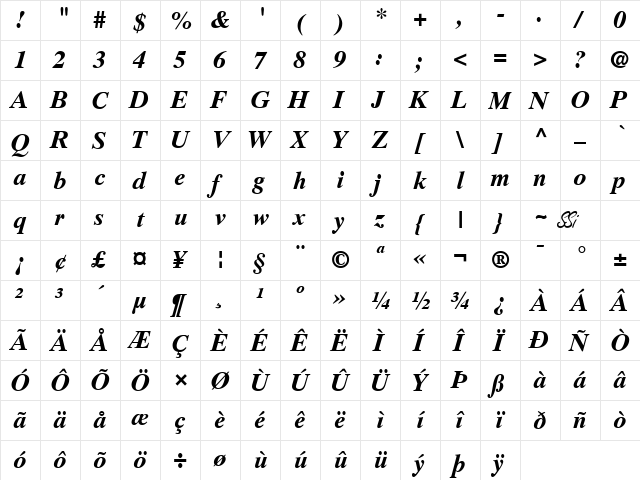
Greco Ten SSi Bold Italic
Design Context for Greco Ten SSi Typeface
Greco Ten SSi takes a measured approach to typography — its balanced proportions and neutral character make it a reliable workhorse for both digital and print work. The dynamic lean of this cut emphasises speed and emphasis in any layout. Its bold stroke weight gives it real presence on the page.